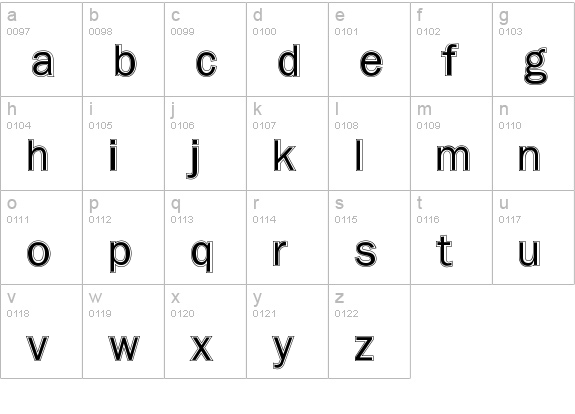
FranklinContour Font Details
FranklinContour font is a modern and versatile typeface that exudes sophistication and elegance. Its sleek lines and subtle curves give it a unique and contemporary appeal, making it suitable for a wide range of design projects. The font strikes the perfect balance between classic and modern, making it a great choice for both print and digital applications. One of the best features of FranklinContour font is that it is available for free download at FontsMarket.com. This means that you can easily access and use this stylish font without any cost, making it a valuable addition to your font collection. Whether you're working on branding, editorial design, or web projects, FranklinContour font is sure to elevate your work with its clean and refined aesthetic. Overall, FranklinContour font is a must-have for designers looking to add a touch of sophistication to their projects. With its timeless design and free availability, this font is a versatile and practical choice for all your design needs. Download FranklinContour font today and see how it can enhance your creative endeavors.